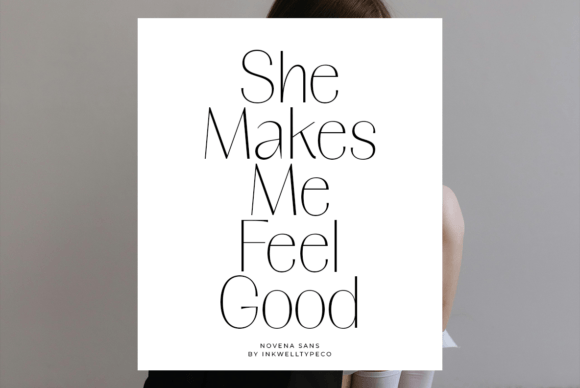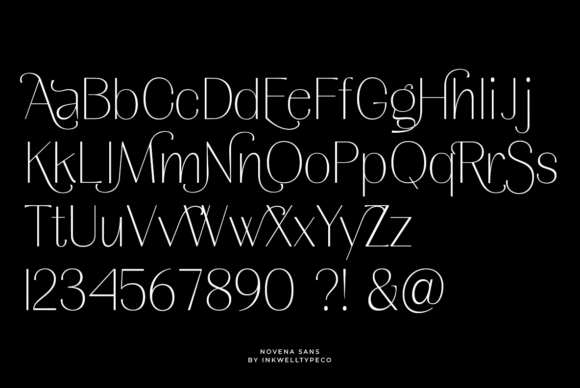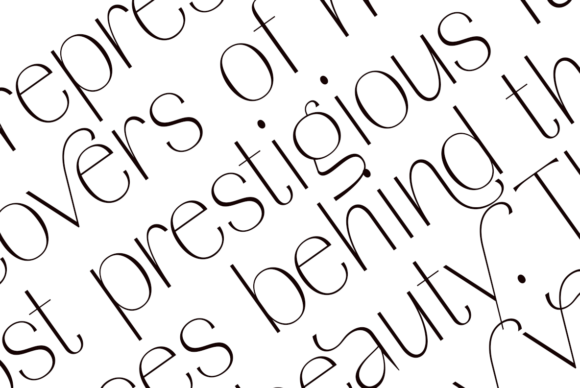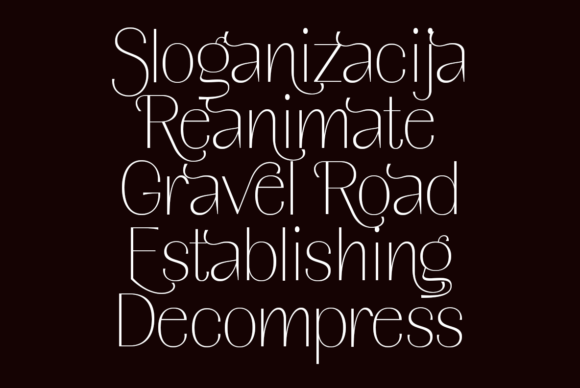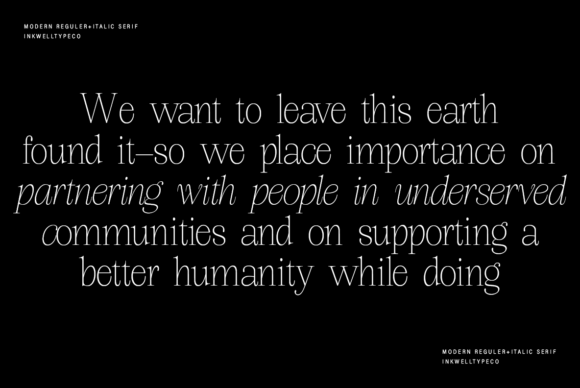
Introduction to Novena Font
As a designer, there’s nothing quite like the thrill of stumbling upon a new font that sparks inspiration and sets your creative juices flowing. For me, that moment came when I discovered the stunning Novena Font. Its sleek, elegant, and contemporary serif style has been a game-changer in my design projects, and I’m excited to share its story with you.
Whether you’re working on a luxury branding project, an editorial design, or a sophisticated advertising campaign, the Novena Font is a valuable resource that can elevate your creative project to new heights. Its unique blend of modern digital precision and hand-drawn warmth makes it a versatile design tool that’s hard to resist.
What sets the Novena Font apart is its ability to seamlessly bridge the gap between traditional and future-forward typography. With its thin, elongated strokes and subtle curves, it’s the perfect choice for designers who want to create high-quality designs with a transparent background and a touch of sophistication.
Key Features of Novena Font
- High-quality design resource suitable for various creative projects, including digital art, graphic design, and web development.
- Novena Font is a unique and elegant typeface, ideal for applications requiring a transparent background or a subtle, high-resolution design.
- Novena Font is designed to be highly legible and versatile, making it suitable for a wide range of design projects, from headings to body text.
- Available in a single weight, with a clean and modern aesthetic that works well with a variety of design styles and color schemes.
Honest Review: Novena Font
As a designer, I’m always on the lookout for high-quality design resources to elevate my creative projects. The Novena Font has been a game-changer for me, and I’m excited to share my honest review with you.
What works well: ✨ The Novena Font is incredibly versatile and comes in a range of weights and styles, making it perfect for a variety of design applications. The font is also highly legible, even on a transparent background, which is a huge plus for designers who need to create visually appealing graphics.
- High-quality design: The font is designed with precision and care, making it a valuable addition to any design project.
Any limitations: ⚠️ The Novena Font is a bit limited in terms of its international character set support, which may be a concern for designers working on projects with multiple languages.
Overall impression: I’m thoroughly impressed with the Novena Font, and I’ve already incorporated it into several of my creative projects. If you’re looking for a high-quality, versatile font that won’t break the bank, the Novena Font is definitely worth checking out.
Novena Font
The Novena Font is a versatile and elegant design resource, ideal for various creative projects. Its high quality and sleek design make it a popular choice for designers and non-designers alike.
Using Novena Font in Design Applications
Tips for Getting the Most Out of Novena Font
To get the most out of the Novena Font, consider the following tips:
- Use the font with a transparent background for a more modern look.
- Combine the Novena Font with other design elements for a cohesive look.
The Novena Font is ideal for various creative projects, including:
- Business cards and letterheads.
- Brochures and flyers.
- Website headers and footers.
Alternatives to Novena Font
The Great Vibes Font is a high-quality, elegant script font that is perfect for creative projects requiring a touch of sophistication. It features a transparent background and can be used for titles, headings, and other design elements. When to use: For projects that require a luxurious and elegant feel, such as wedding invitations, luxury branding, and high-end packaging.
Comparison to Novena Font: Great Vibes Font has a more refined and elegant look compared to Novena Font, making it suitable for more upscale and professional projects.
The Alex Brush Font is a beautiful, handwritten font that is ideal for creative projects requiring a personal touch. It features a transparent background and can be used for titles, headings, and other design elements. When to use: For projects that require a personal and emotional connection, such as children’s books, greeting cards, and social media graphics.